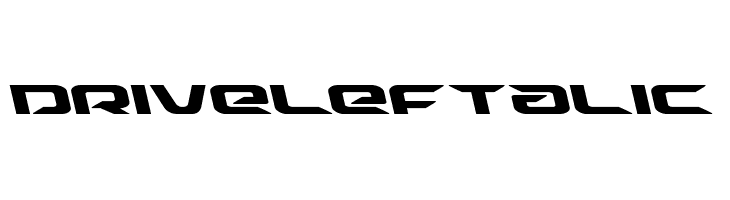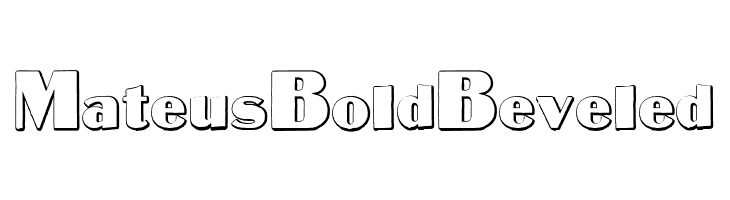
A bold, impactful font with thick strokes and a modern vintage flair.
A bold, modern font with a strong, condensed design ideal for impactful headlines.
A geometric, pixelated font with a retro digital aesthetic.
A lively and elegant script font with flowing, dynamic strokes.
A playful, retro outline font with bold, bubble-like characters.
A modern, cursive font with elegant strokes and artistic flair.
A bold, italicized font with a futuristic and angular design.
A bold, angular font with a futuristic and dynamic style.
A bold, brush-style handwritten font with dynamic and fluid characteristics.
A bold, geometric font with a futuristic and industrial design.